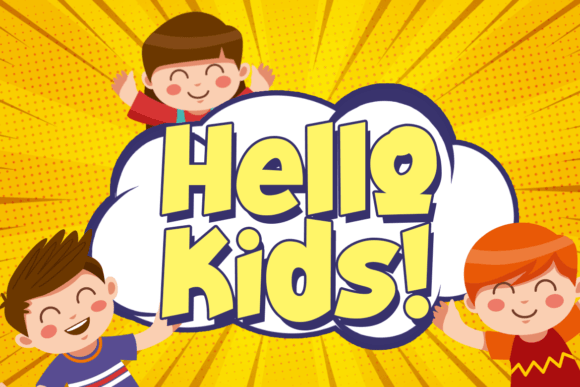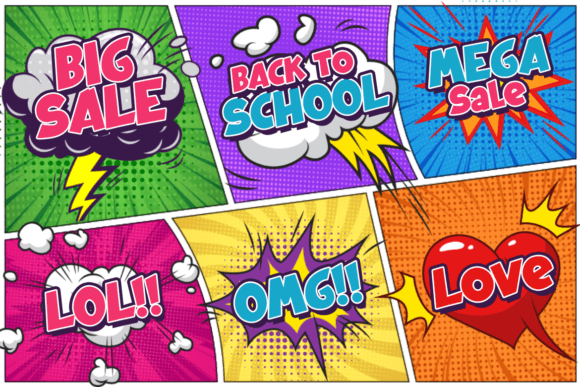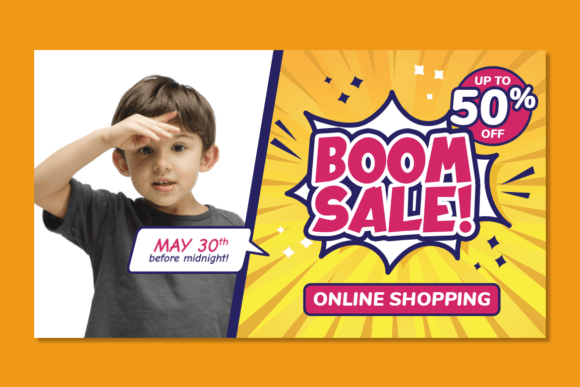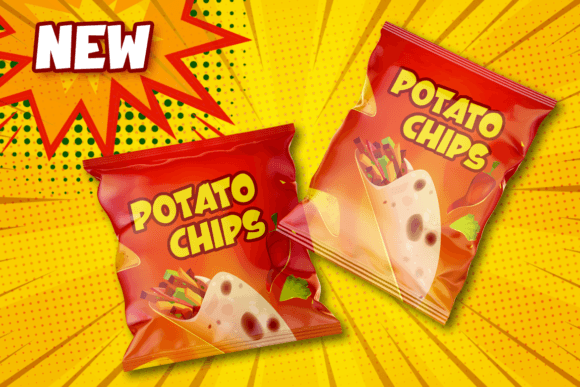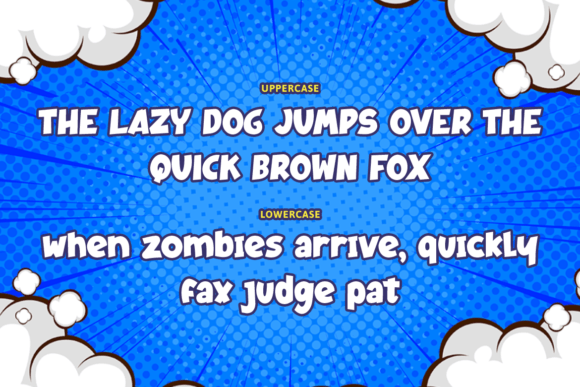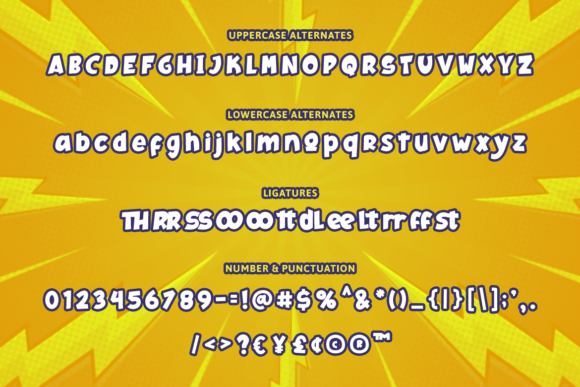
Introduction to Komikaze Font Font
Fonts play a crucial role in design, and the Komikaze Font font is a typeface that brings both character and versatility to any project. Whether you’re working on a branding project, a website, or a print design, the Komikaze Font font offers a unique style that can elevate your work.
Komikaze is a creative typeface that could bring out the fun side of your design projects.
Have fun playing with Komikaze is perfect for branding projects, logos, wedding designs, social media posts, advertisements, product packaging, product designs, labels, photography, watermarks, invitations, stationery, and any projects that need bold typography.
Key Features of Komikaze Font Font
Why Choose Komikaze Font Font?
The Komikaze Font font is more than just a typeface – it’s a design tool that helps you communicate your message with style and clarity. Its unique character set and versatile design make it suitable for a wide range of applications, from elegant invitations to bold headlines.
With its carefully crafted letterforms and balanced proportions, the Komikaze Font font ensures readability and visual appeal across all mediums.
What makes Komikaze Font font special?
The Komikaze Font font stands out with its unique design, exceptional readability, and versatility across various design applications.